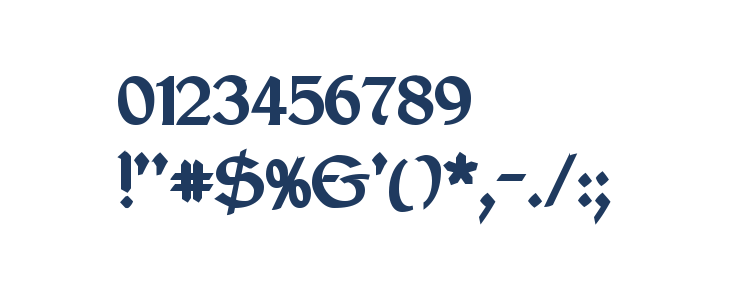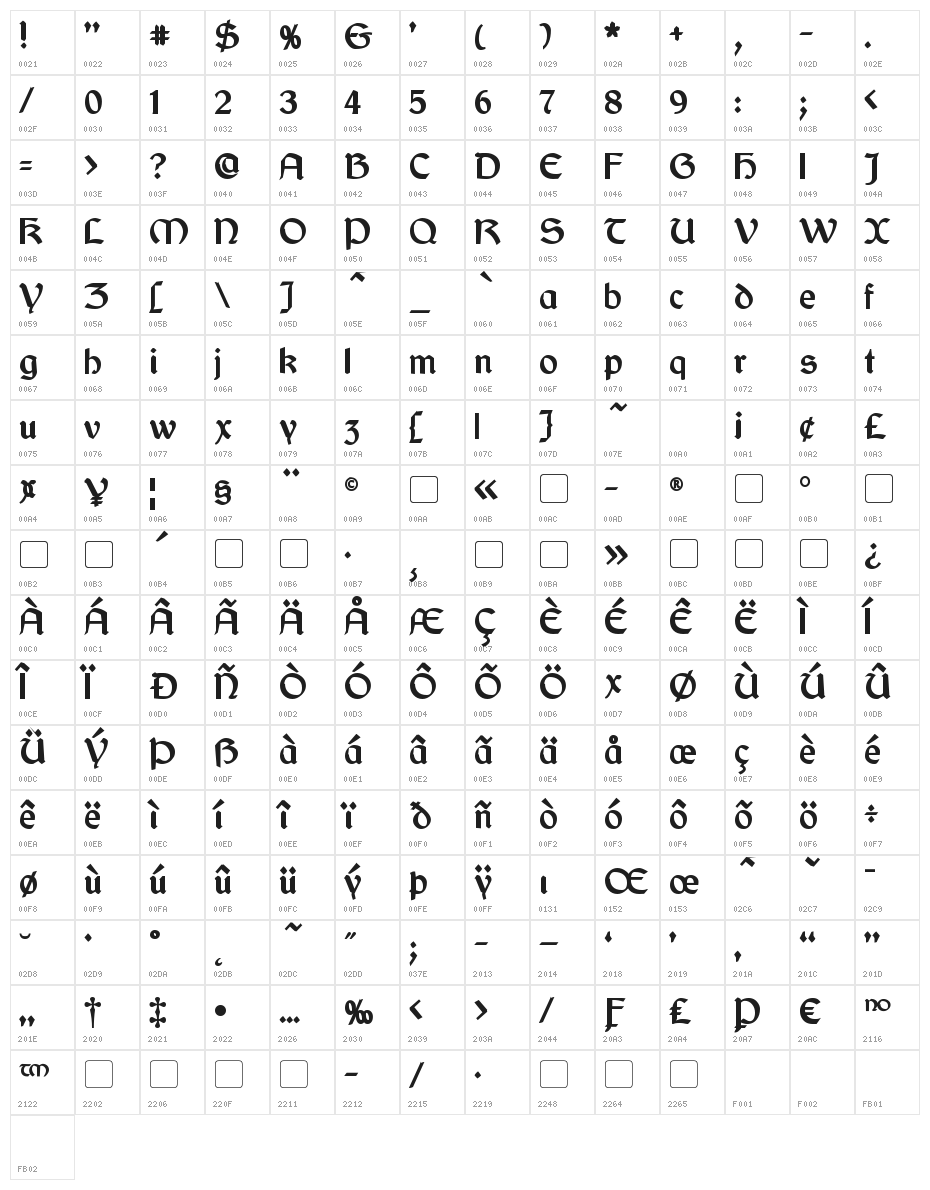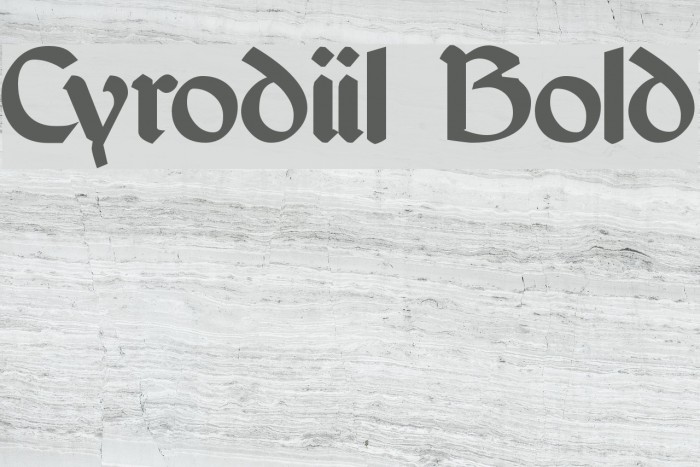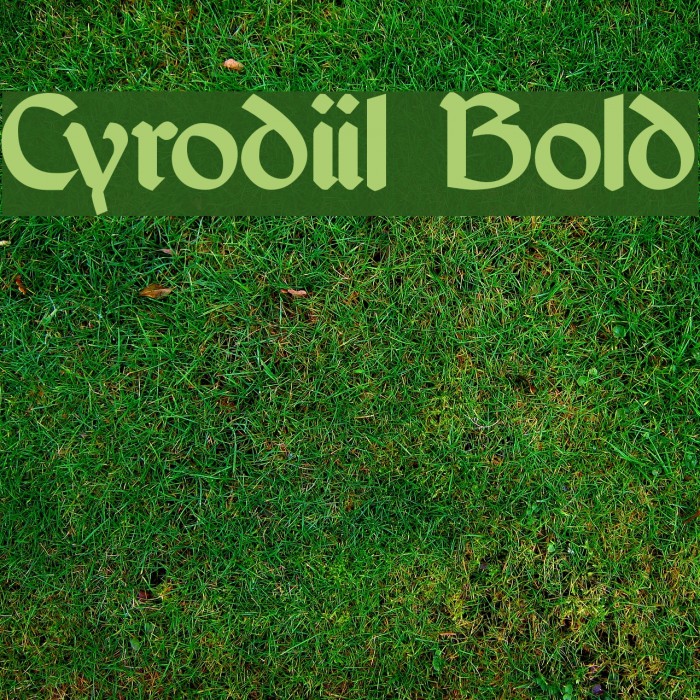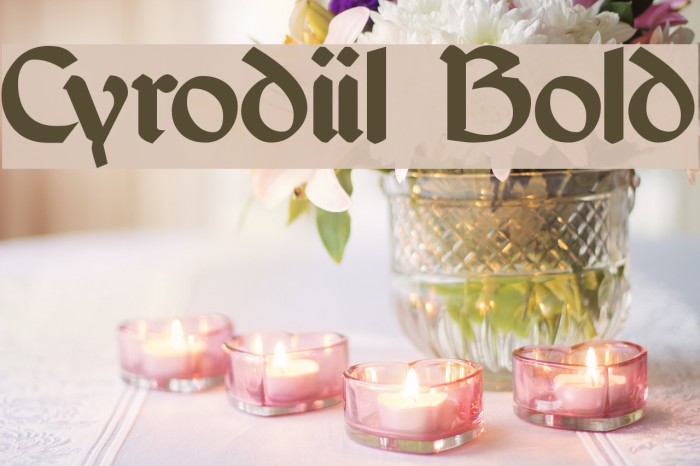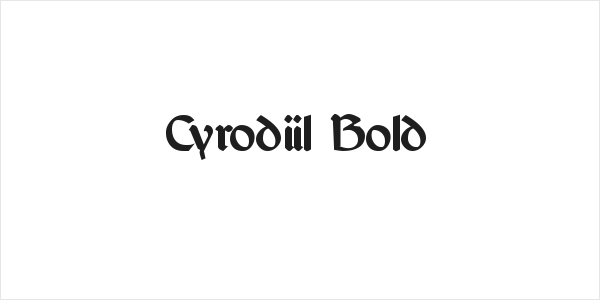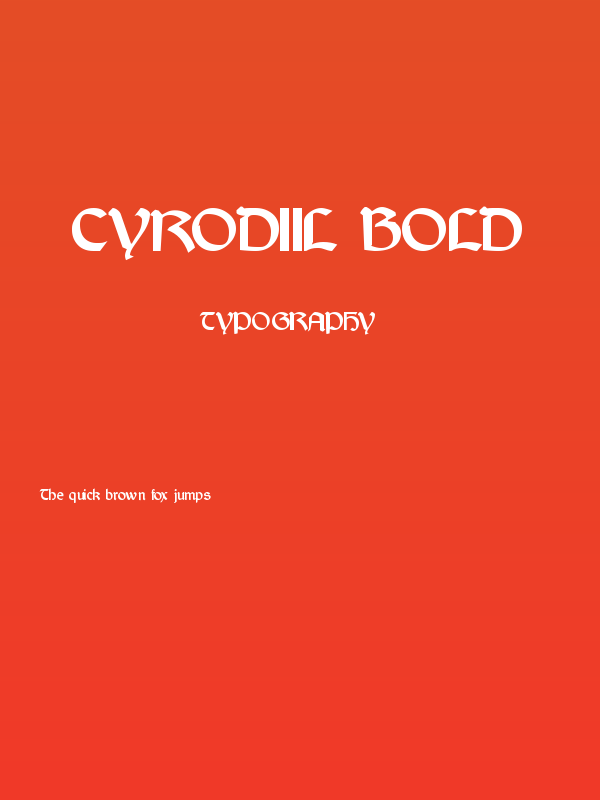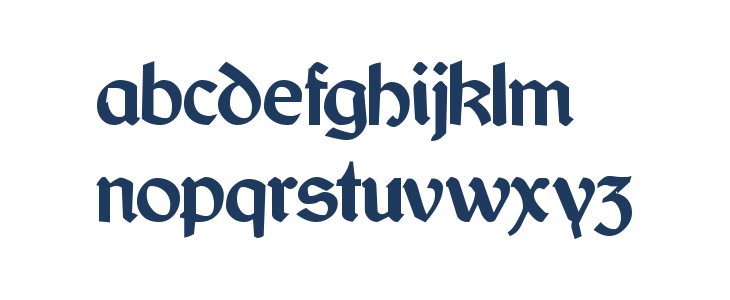
Cyrodiil Bold Font
Cyrodiil Bold Description
This font exhibits a bold and striking design with a medieval flair, characterized by its sharp, angular serifs and strong, thick strokes. The uppercase letters are particularly distinctive, with a gothic influence that adds a sense of drama and historical depth. The lowercase letters maintain this theme, offering a cohesive look that is both powerful and elegant. The numerals are consistent with the overall style, featuring similar boldness and angularity. Special characters are designed to match the font's unique aesthetic, ensuring a seamless integration into any text. This font is ideal for projects that require a touch of historical or fantasy elements, making it perfect for themed designs or branding.
| Proposed Projects | Ideal for fantasy-themed designs, historical branding, book covers, and gaming titles. |